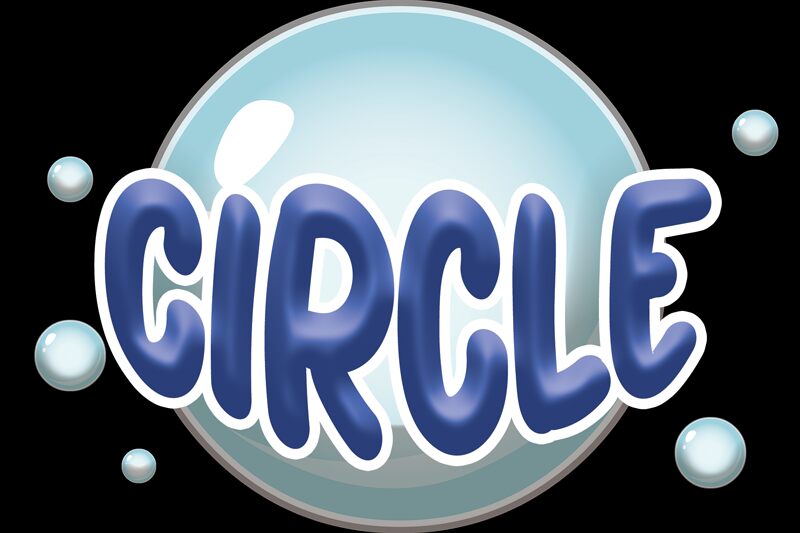
Podgląd czcionki Circle
Circle is a bold and simple display font designed by Erik Studio. Simple and easy to use, this font will be very beautiful if you mix it with your various craft designs.